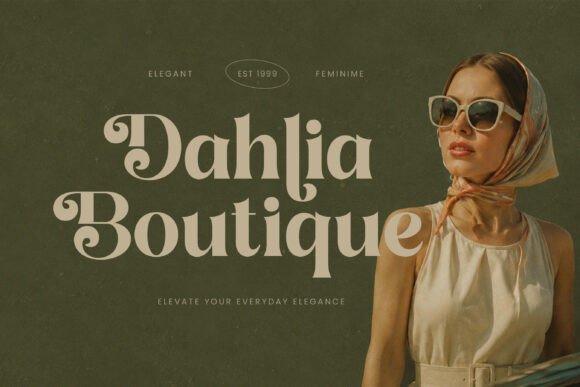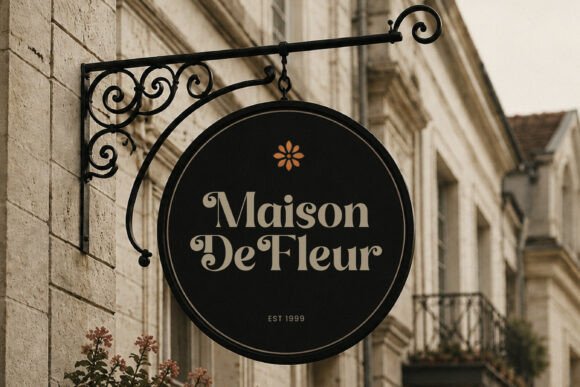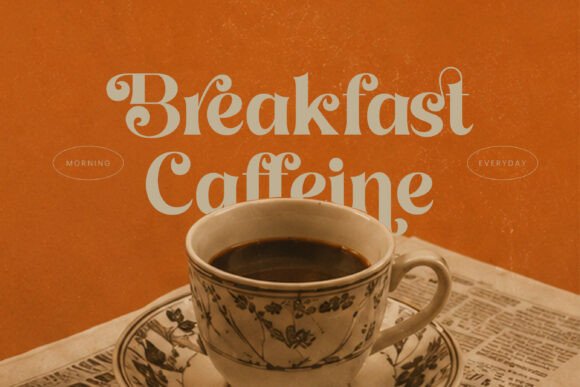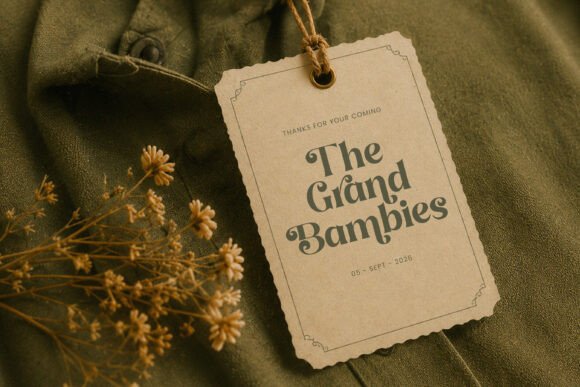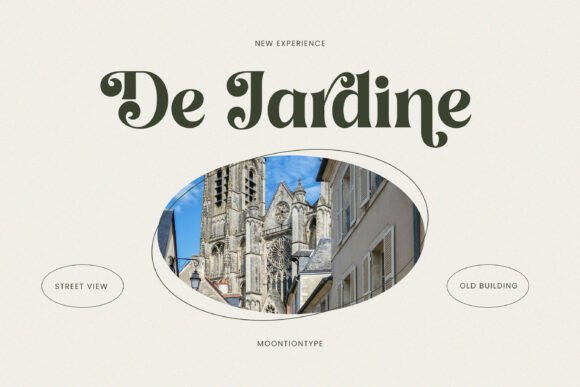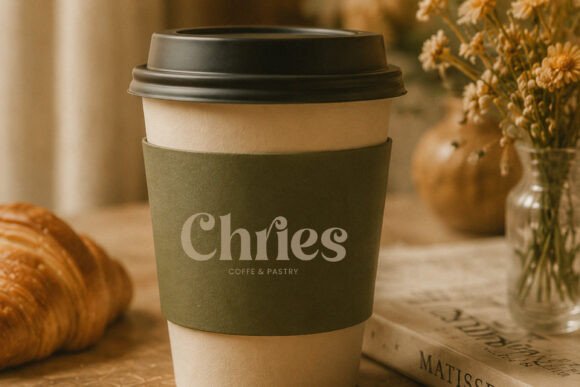
Timeless Typography: Introducing the Grand Bambies Font
As a designer, have you ever stumbled upon an old book or a vintage advertisement and been captivated by the elegant typography? The way the letters danced across the page, with their bold serifs and classic curves, leaving you in awe of the craftsmanship. That’s exactly the feeling you’ll get when using the Grand Bambies Font, a bold retro serif font designed to bring a nostalgic yet sophisticated feel to your designs.
The Grand Bambies Font is perfect for designers looking to add a touch of vintage charm to their branding projects, logos, packaging, editorials, and more. With its unique character shapes and strong serif style, this font creates eye-catching typography that feels classy, artistic, and memorable. Whether you’re working on a vintage-inspired project or simply want to add a touch of elegance to your designs, the Grand Bambies Font is a valuable addition to your toolkit.
Grand Bambies Font Key Features
- Unique Characteristics: The font features a unique, hand-drawn style with bold lines and playful flourishes, making it ideal for children’s books, magazines, and other publications targeting a young audience.
Grand Bambies Font Review
Overall, I was quite excited to dive into the Grand Bambies Font, but my expectations were met with a mix of delight and disappointment. Let’s start with what works well:
- ✨ The font has a unique, playful aesthetic that could add a nice touch to children’s books, nursery rhymes, or any design project that needs a whimsical feel.
- ✨ The font is highly customizable, with various OpenType features and a wide range of glyphs, making it suitable for a variety of design applications.
- ✨ The font is well-suited for display purposes, such as headings, titles, and labels, where its bold and quirky nature can shine.
However, I encountered some limitations that prevented me from giving it a higher rating:
- ⚠️ The font may not be ideal for body text, as its bold and playful nature can be overwhelming for large blocks of text.
- ⚠️ Some characters may not be fully compatible with certain operating systems or font rendering engines, which could lead to display issues.
- ⚠️ The font’s unique aesthetic may not be to everyone’s taste, and some designers may find it too childish or over-the-top.
Overall, I would recommend the Grand Bambies Font for designers who are looking for a bold and playful font for display purposes. However, it may not be the best choice for body text or projects where a more subtle font is required.
For best results, use Grand Bambies Font in bold or italic styles to add emphasis.
Use Grand Bambies Font for headings, titles, and logos to add a playful touch.
Combine Grand Bambies Font with other fonts for a unique and creative look.